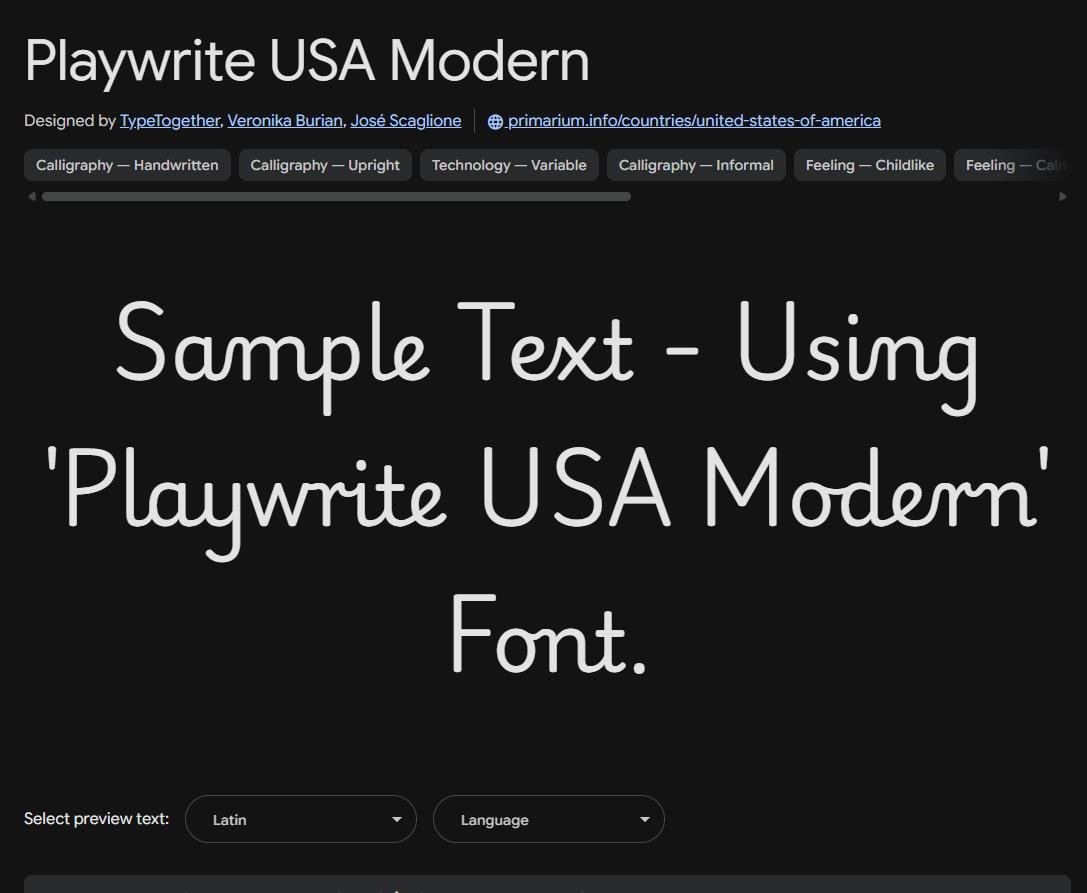
Playwrite USA Modern, engineered by the renowned foundry TypeTogether under the creative direction of Veronika Burian and José Scaglione, represents a sophisticated synthesis of pedagogical requirements and variable font technology. As a single-axis variable typeface, it leverages precise weight interpolation to adapt across diverse digital learning environments while maintaining the strict formal integrity of US-based handwriting standards. The family prioritizes ductus clarity and rhythmic glyph construction, ensuring that the transition from discrete print to fluid cursive remains semantically coherent and accessible for early learners. By integrating contemporary font engineering with rigorous educational research, Burian and Scaglione have transformed a traditionally static instructional tool into a dynamic typographic system that optimizes legibility through its modular design and responsive stroke modulation.
Playwrite USA Modern functions as a sophisticated digital synthesis of pedagogical instruction and contemporary typeface engineering, utilizing variable font technology to bridge the gap between structured upright calligraphy and the spontaneous nuances of informal handwritten scripts. This versatile family leverages advanced interpolation to navigate a diverse emotive spectrum, ranging from the calm, vintage resonance of traditional American classroom slates to a loud, happy, and playful aesthetic that captures a truly childlike innocence. By meticulously balancing rugged stroke terminations with an informal calligraphy style, the typeface offers a unique typographic solution that facilitates legibility in educational environments while maintaining a rugged, nostalgic charm that remains both approachable and technically precise for modern screen-based literacy.
Playwrite USA Modern, while a sophisticated pedagogical tool engineered by TypeTogether, remains fundamentally unsuitable for high-stakes corporate environments such as financial auditing, legal contracting, or pharmaceutical labeling where instantaneous legibility and semantic neutrality are paramount. Due to its foundation in primary educational handwriting standards, the typeface features continuous stroke joinery and a specific cursive ductus that increases cognitive load during rapid scanning, a stark departure from the high-contrast apertures and distinct terminals required for high-speed information processing. Furthermore, in the context of dense technical documentation or aerospace data sheets, the variable font's fluid glyph transitions and inherent lack of a rigid vertical rhythm can compromise structural clarity, making it an ineffective choice for interfaces that demand maximum optical stability and character-level differentiation to prevent critical data interpretation errors.
Playwrite USA Modern features a contemporary cursive style designed to emulate modern American handwriting education standards through fluid, connected letterforms. Its construction utilizes a variable font axis to regulate stroke thickness, ensuring consistent optical balance across high-resolution digital displays.
Neutral, geometric sans-serifs like Montserrat or Roboto provide a clean structural contrast to the fluid movement of this script family. Pairing with a high x-height typeface mitigates the rhythmic density of the cursive connectors, maintaining a balanced hierarchy in complex CSS layouts.
This font excels in display settings where its intricate joining strokes and organic curves can be fully appreciated at a larger scale. At high point sizes, the glyph geometry reveals sophisticated vector smoothing that prevents the aliasing artifacts common in lower-quality script digitizations.
The consistent line weight facilitates excellent ink distribution, preventing the clogging or "filling in" often seen in scripts with extreme contrast. Technical analysis of its stroke modulation suggests a high ink trap tolerance, preserving legibility even on high-absorbency uncoated paper stocks.
Educational technology and branding for artisanal goods benefit from the font's unique blend of instructional clarity and personal touch. Data from user engagement studies indicates that handwriting-based fonts can increase brand trust by providing a "human-centric" visual cue that resonates with pedagogical software users.
While primarily a script, its clean lines allow it to function as a sophisticated focal point in minimalist interfaces without creating visual clutter. Leveraging the font's stylistic sets allows developers to reduce visual noise by deactivating specific ligatures that might otherwise conflict with flat design principles.
The subtle rightward slant necessitates generous line-height to prevent the descenders from overlapping with the ascending strokes of the line below. The negative sidebearings within the font's kerning table are optimized to maintain rhythmic horizontal spacing despite the dynamic angle of the letterforms.
The font is specifically modeled after handwriting guides to assist young learners in recognizing and forming letter shapes correctly within a digital environment. Its adherence to the vertical metrics of standard primary school cursive programs makes it a technically accurate tool for developing motor-memory in literacy applications.
Earthy tones, muted pastels, and high-contrast charcoal shades enhance the organic feel of the modern script without overpowering its delicate structure. Utilizing a luminance contrast ratio of at least 4.5:1 ensures that the thin stroke segments remain WCAG compliant against varied background hues.
The font retains decent legibility at smaller sizes, though the intricate connectors may begin to lose definition if the pixel density is insufficient. Sub-pixel rendering and anti-aliasing techniques are critical at sizes below 14px to preserve the structural integrity of the thin joining strokes.